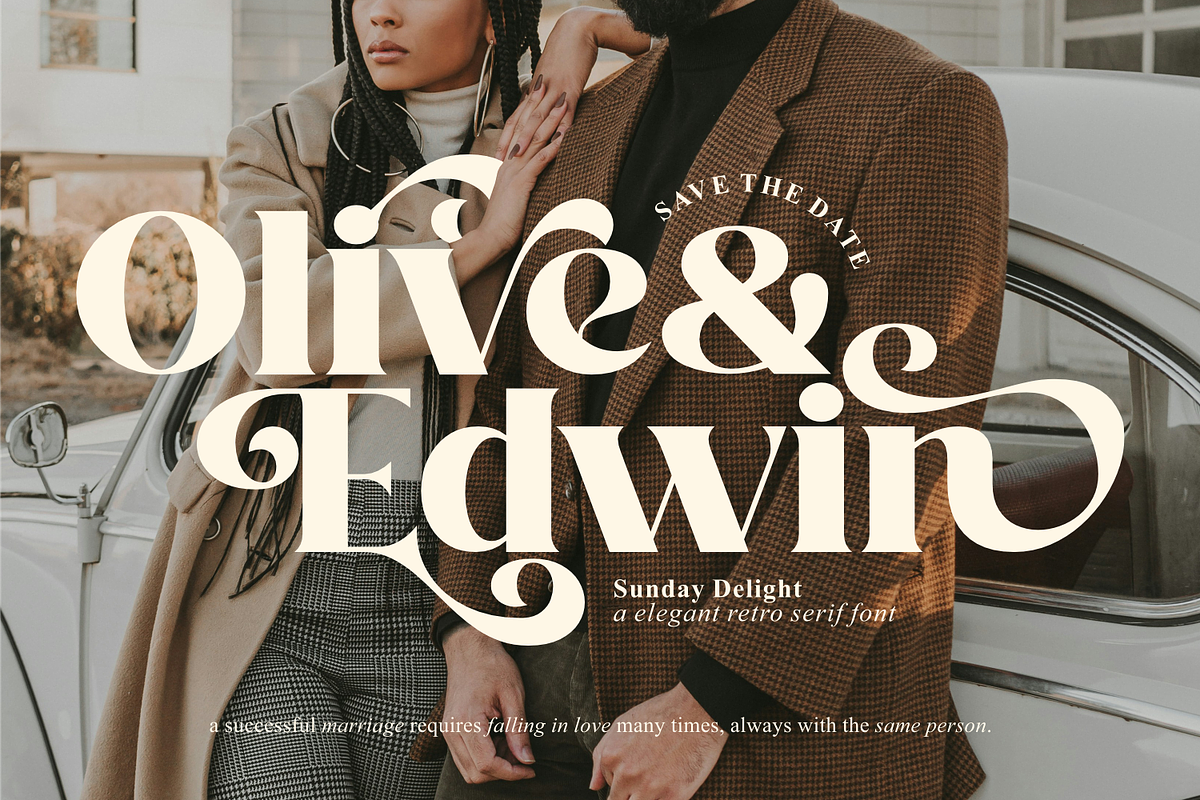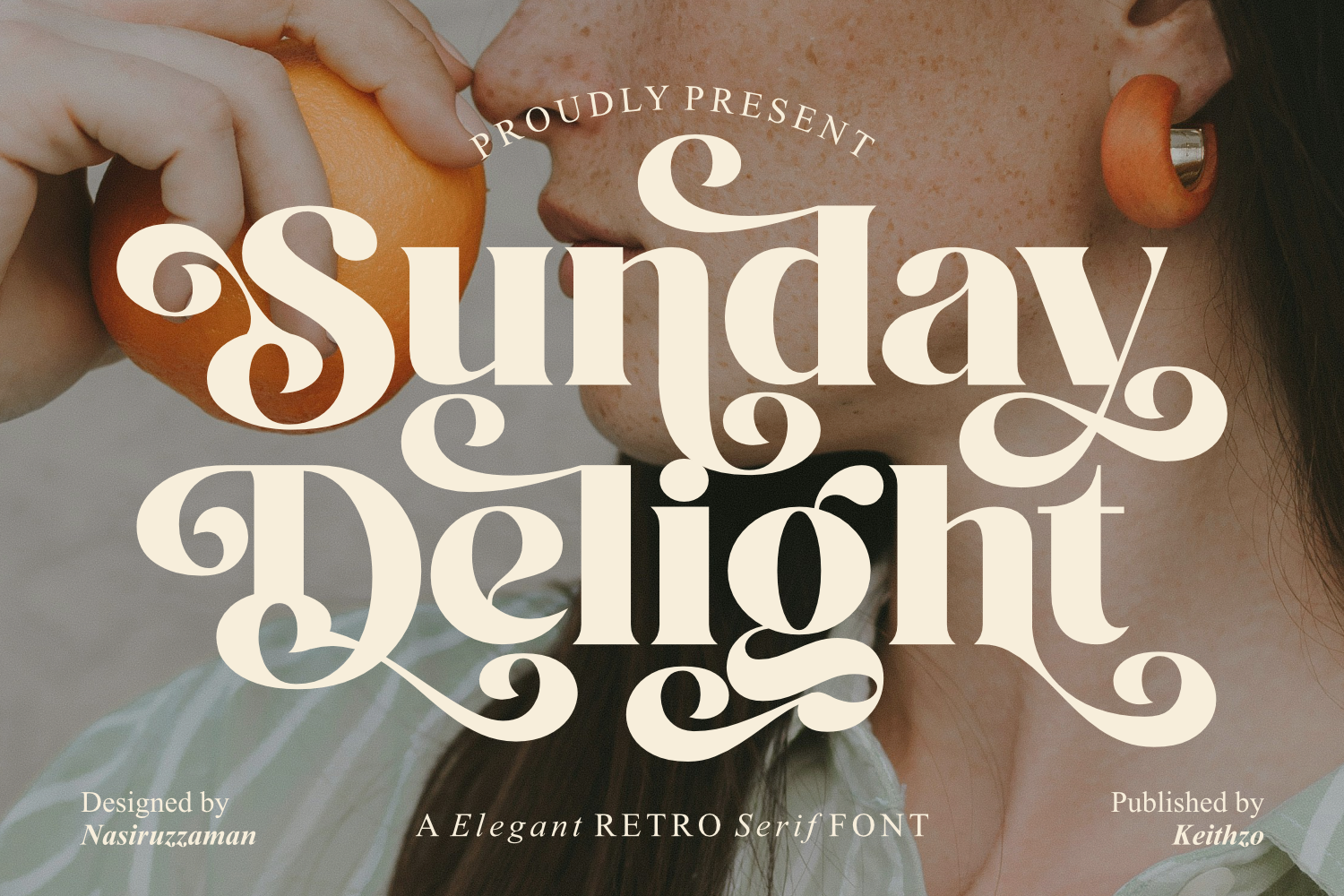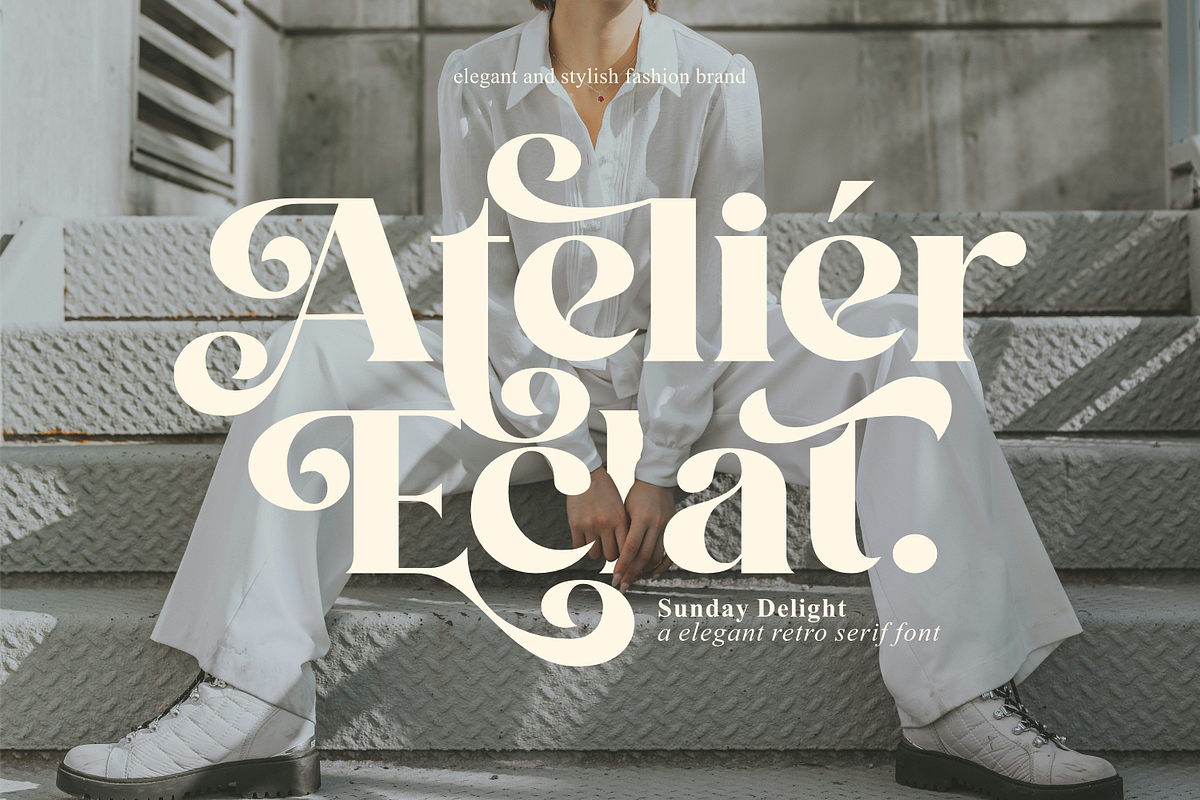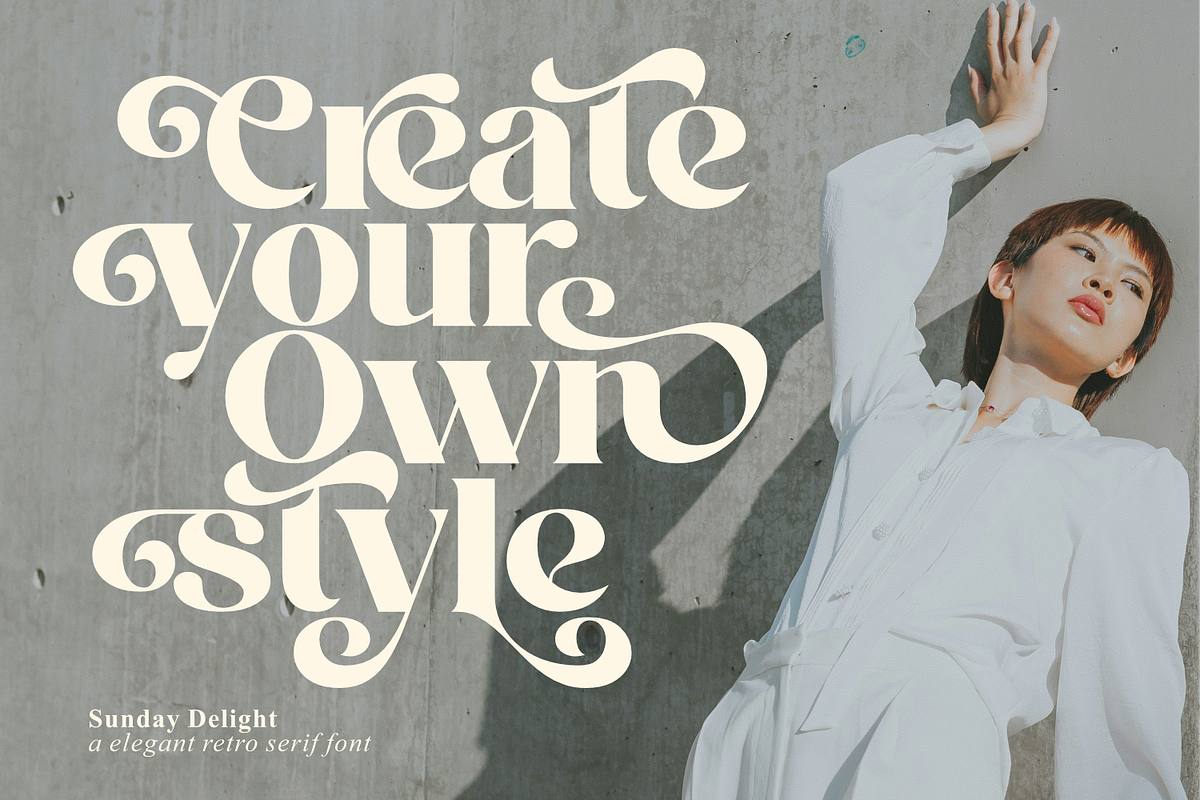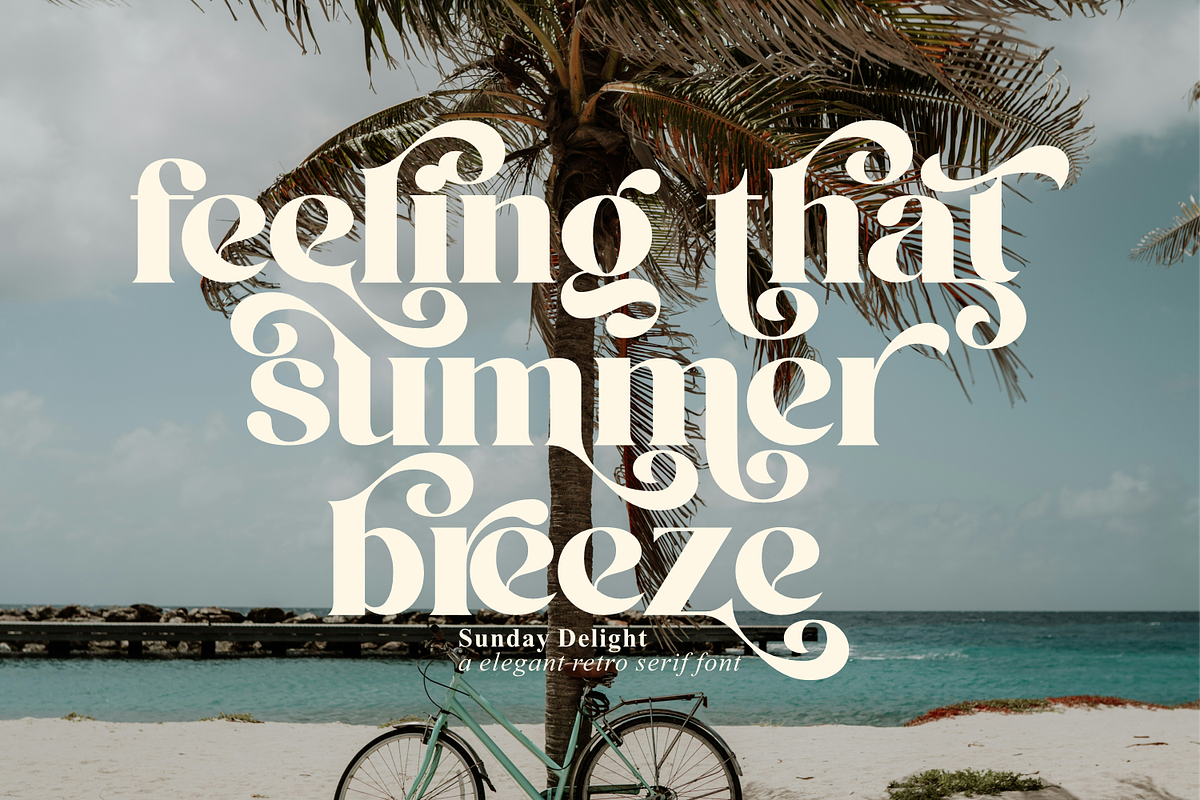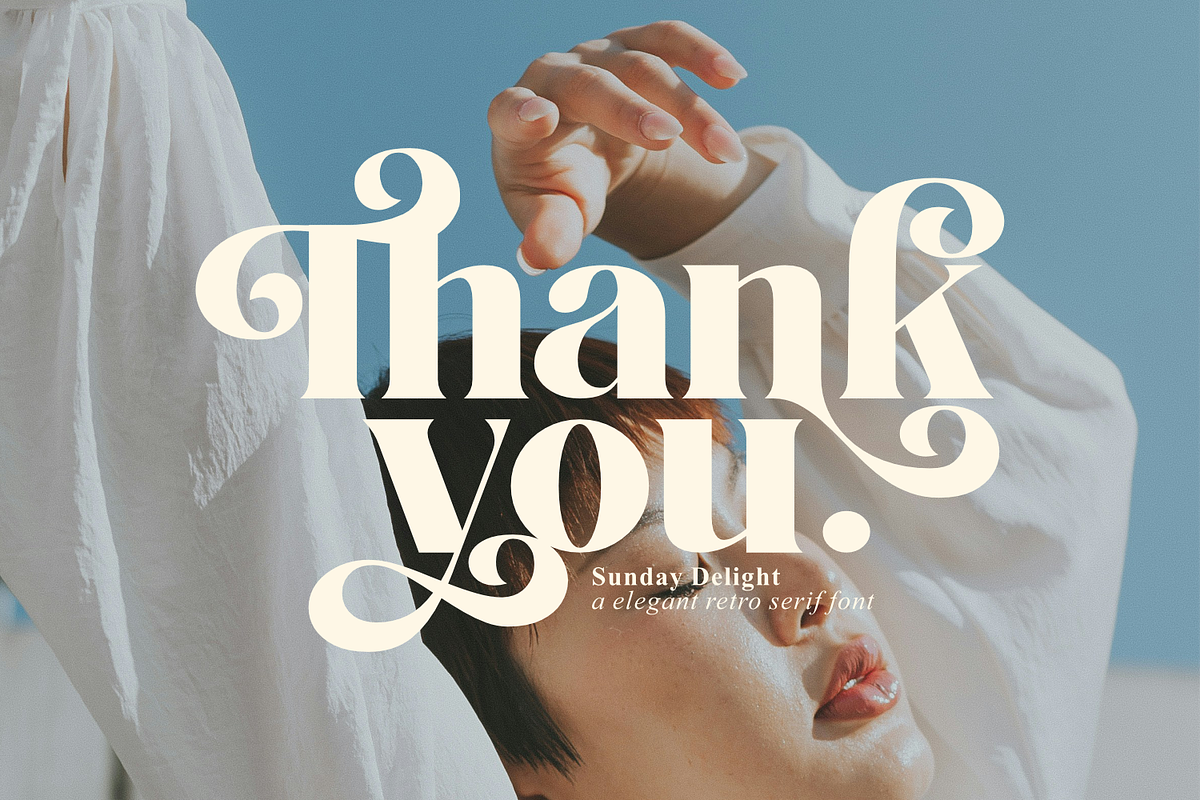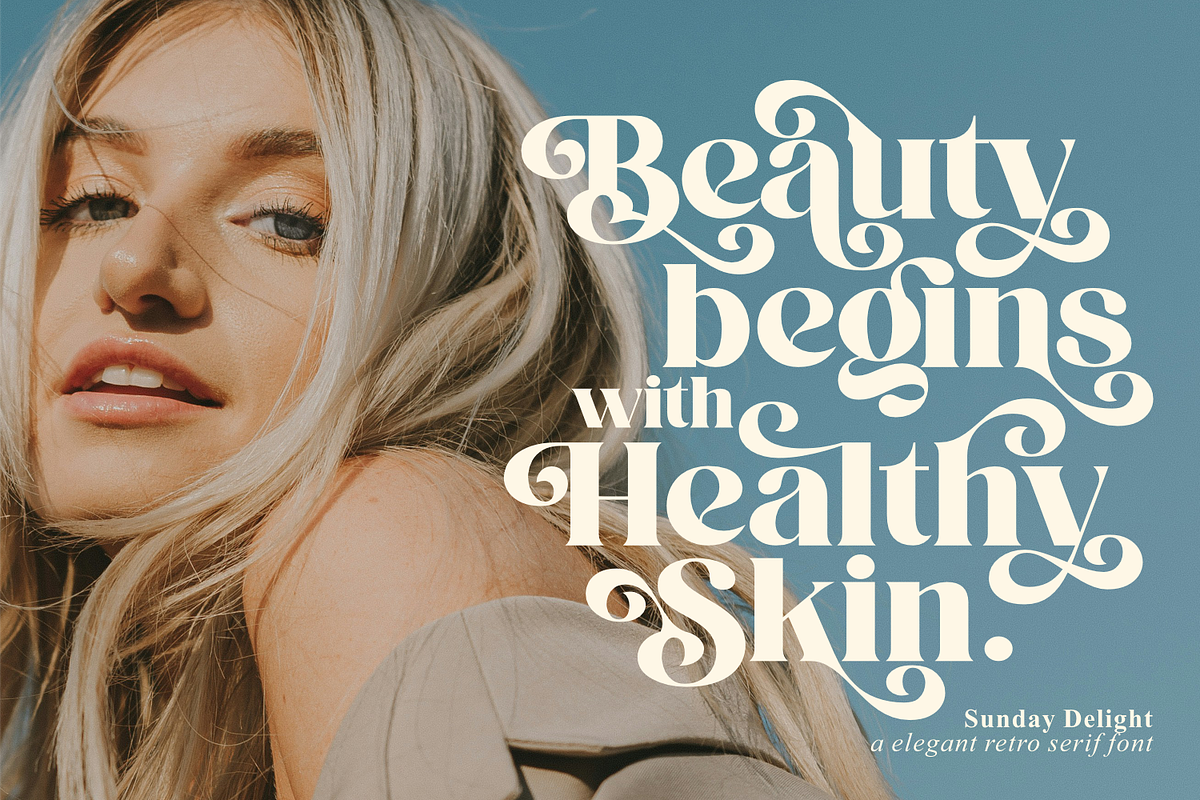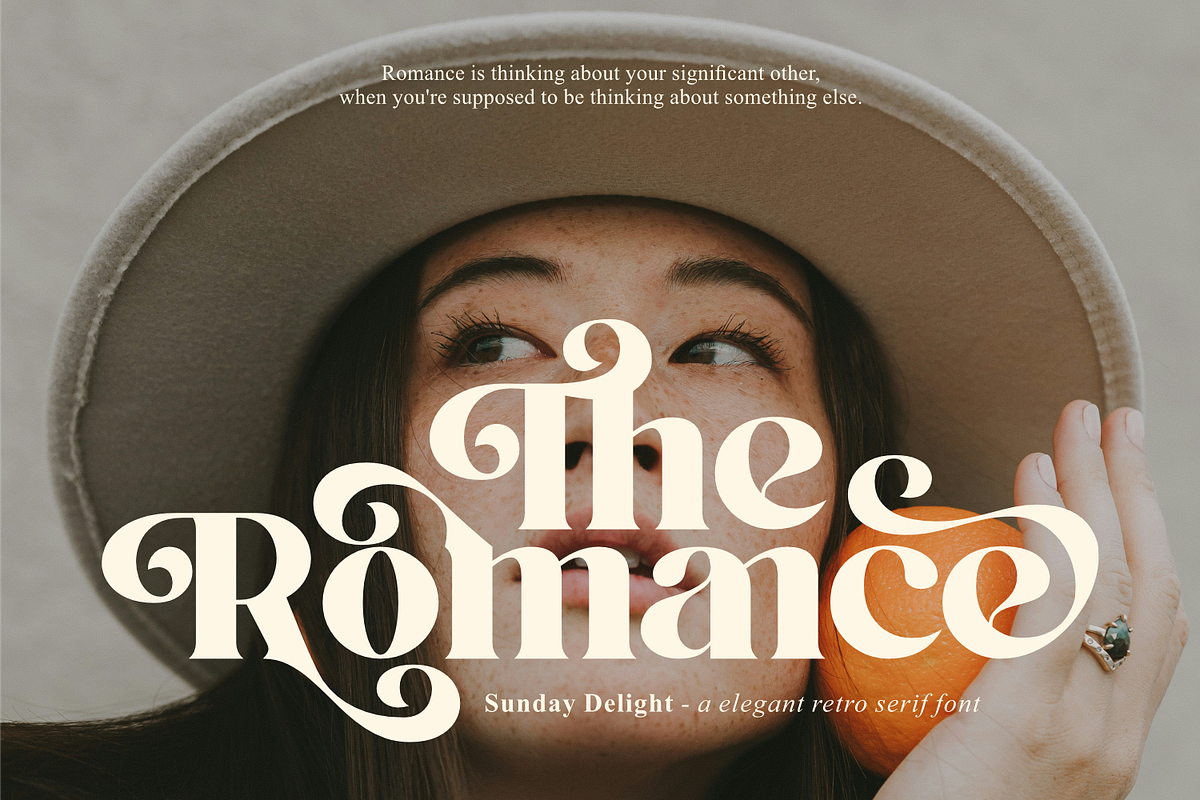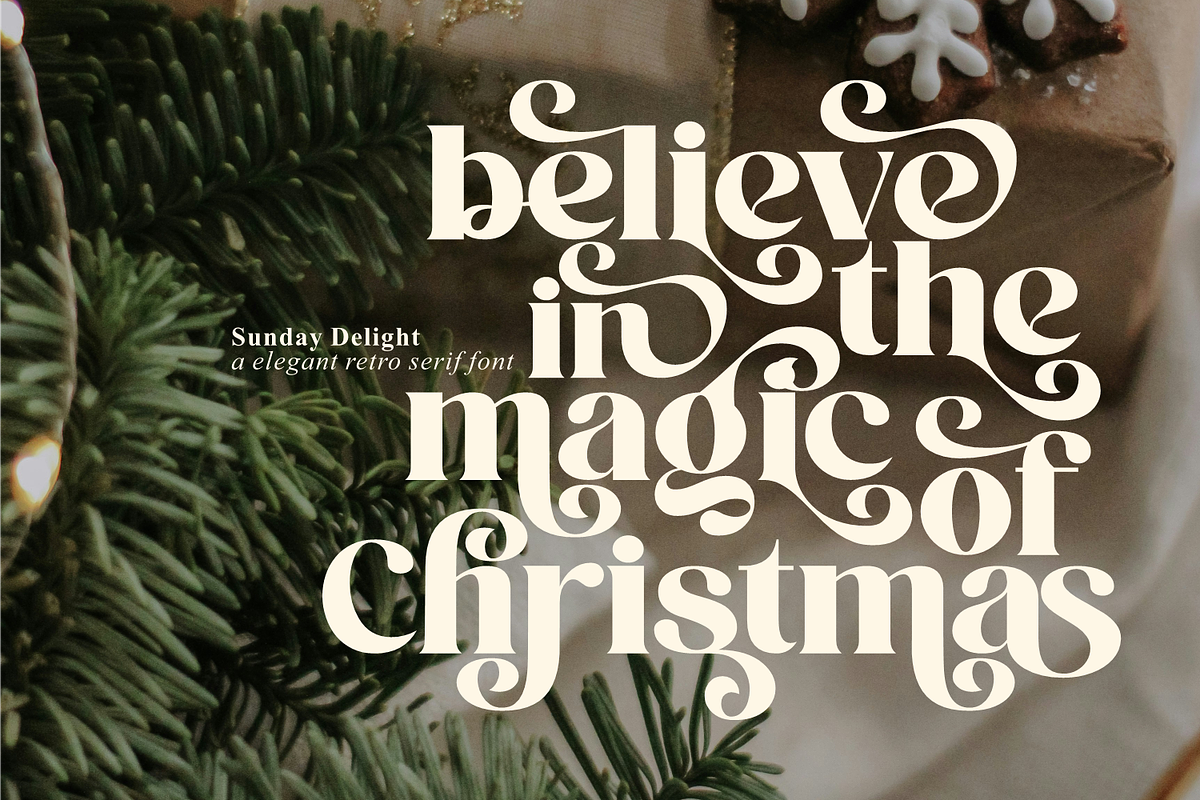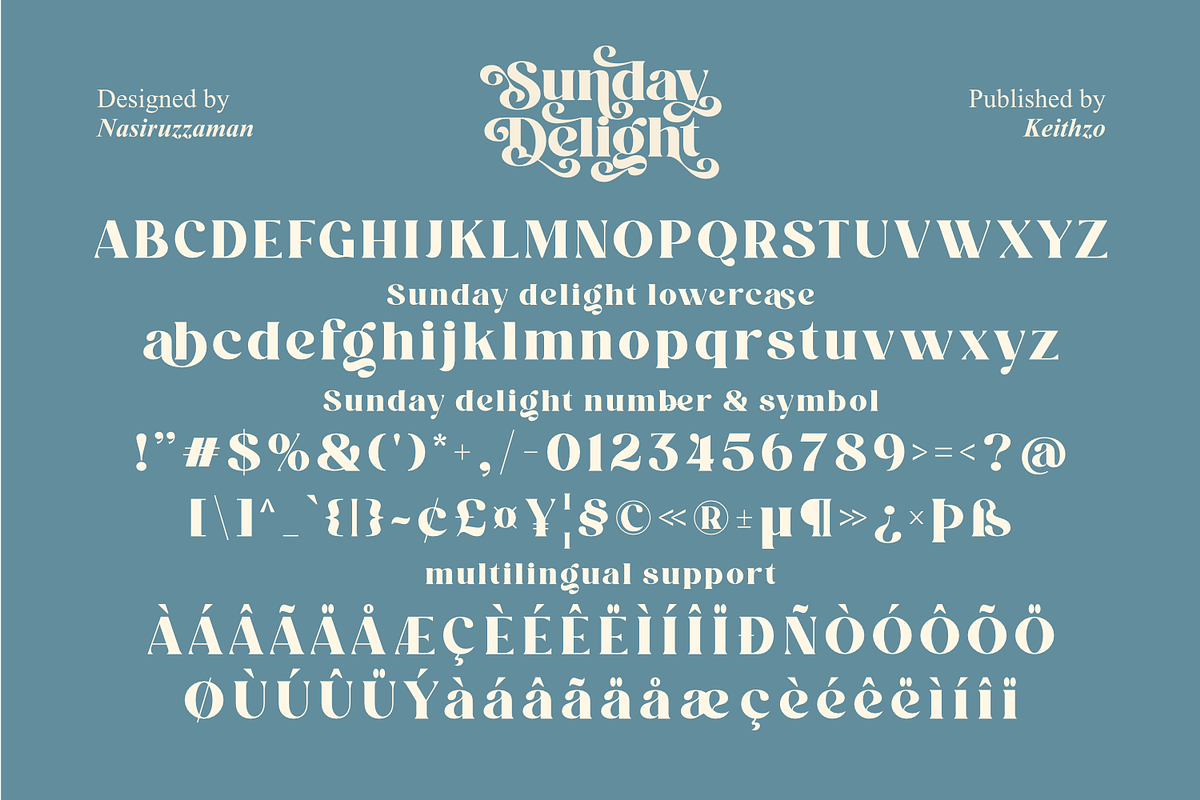
Sunday Delight - Elegant Retro Font
Embrace the charm of yesteryears with Sunday Delight, a playful, vintage-inspired font that brings depth to your designs. Sunday Delight paints an unforgettable picture of nostalgic whimsy, perfect for lending a unique antique touch to any creative idea! Conceived as a dynamic, swash-style serif, Sunday Delight, is versatile and alluring, making it an ideal choice for projects varying from reimagining branding identities, to designing eye-catching packaging. Explore the alternative characters nestled within this font for added diversity.
Sunday Delight thrives across various mediums – whether it’s enhancing print templates, amplifying branding initiatives, sprinkling charm on blog titles or fashion headers, glamorizing invitations or greeting cards, or even adding a sophisticated edge to business cards, stationery, and clothing designs. An all-inclusive font, Sunday Delight comes equipped with uppercase, lowercase, numbers, punctuation, and extensive language support.
This font’s versatility allows you to transform your creative ideas into a reality effortlessly, making you a design maestro in no time. To make your creative journey even smoother, Sunday Delight is PUA encoded, offering easy access to all of its glyphs and swashes. Dive into the world of Sunday Delight and watch your designs be imbued with its charismatic retro vibe. Start designing with Sunday Delight today!